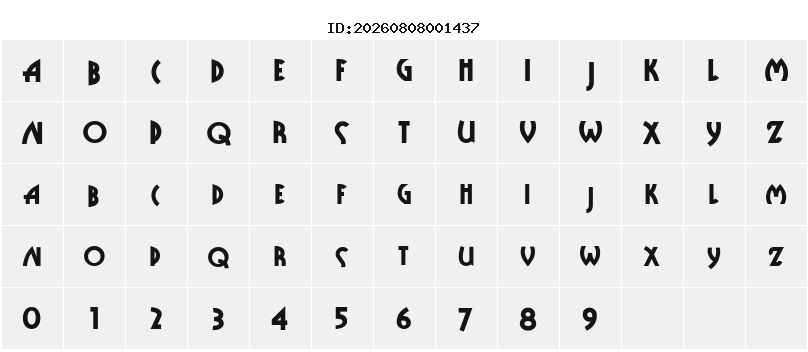
• Font Name: Public-Enemy
• Full Font Name: Public-Enemy
About Public-Enemy.ttf
Public-Enemy.ttf is a modern, elegant sans-serif font designed for ultimate readability and visual harmony. Perfect for branding, headlines, web design, and print materials.